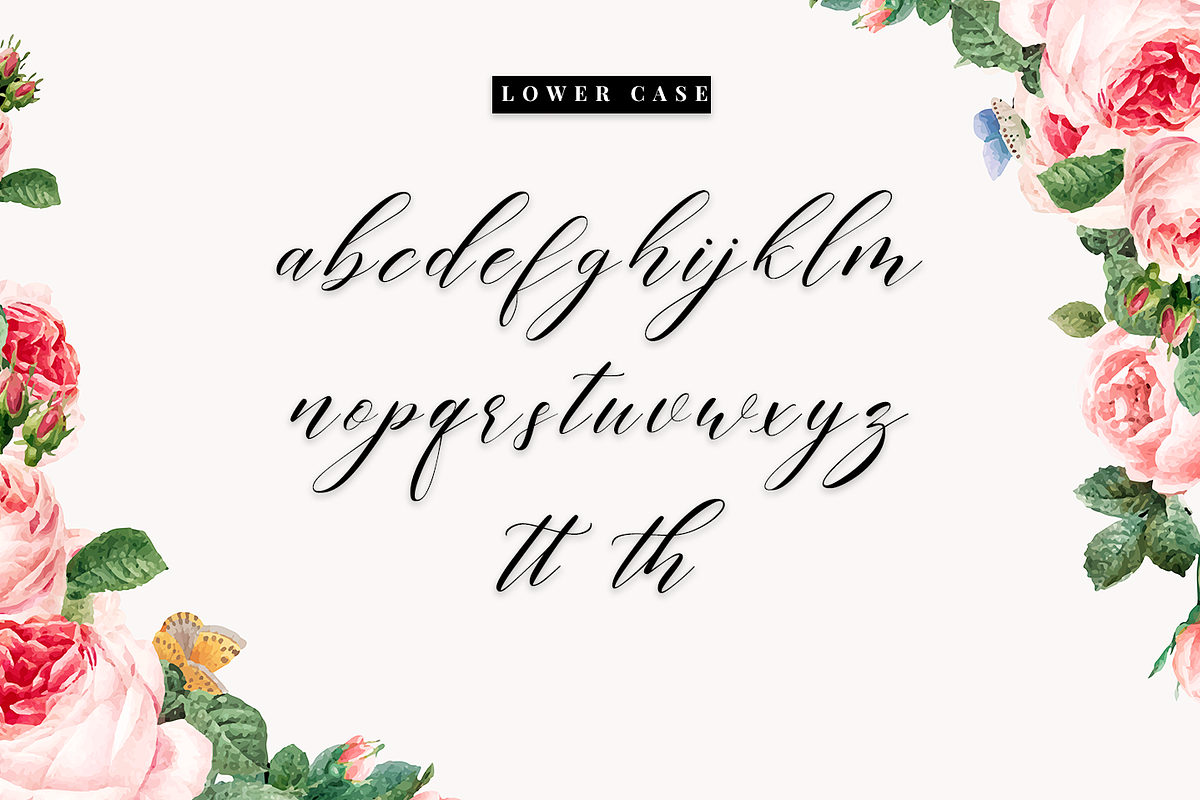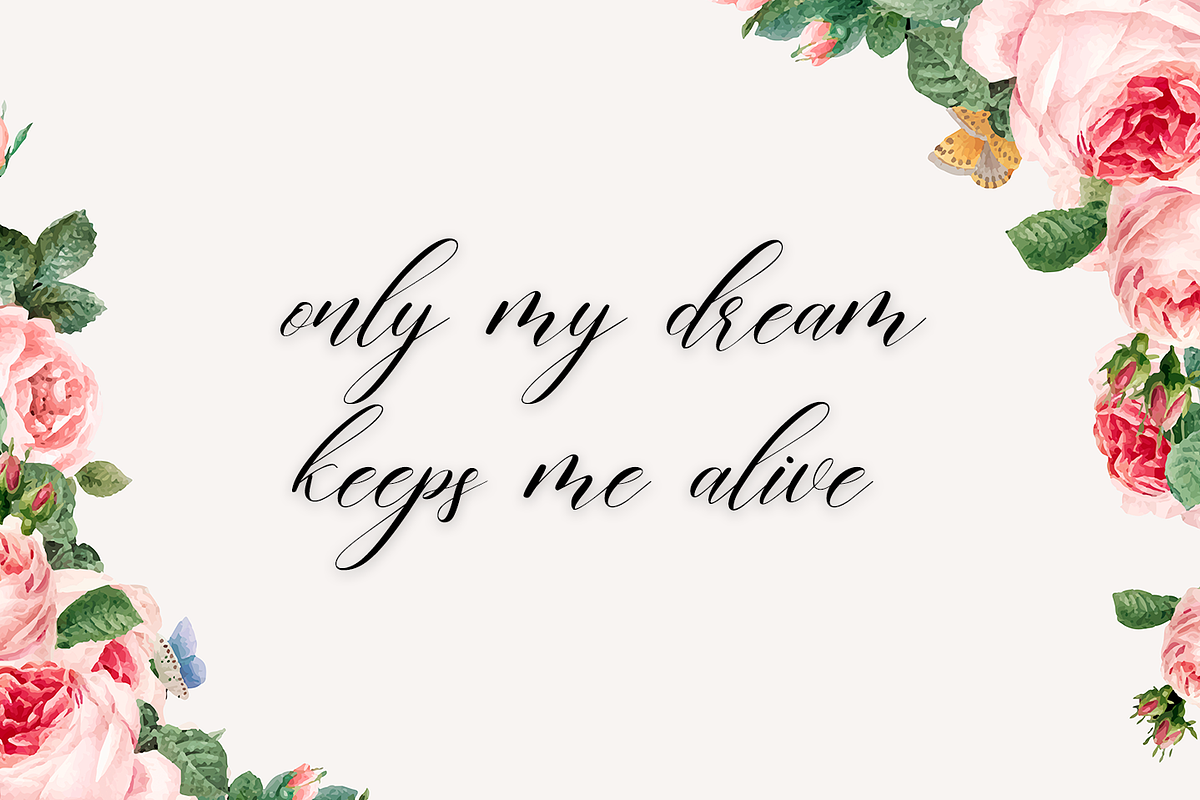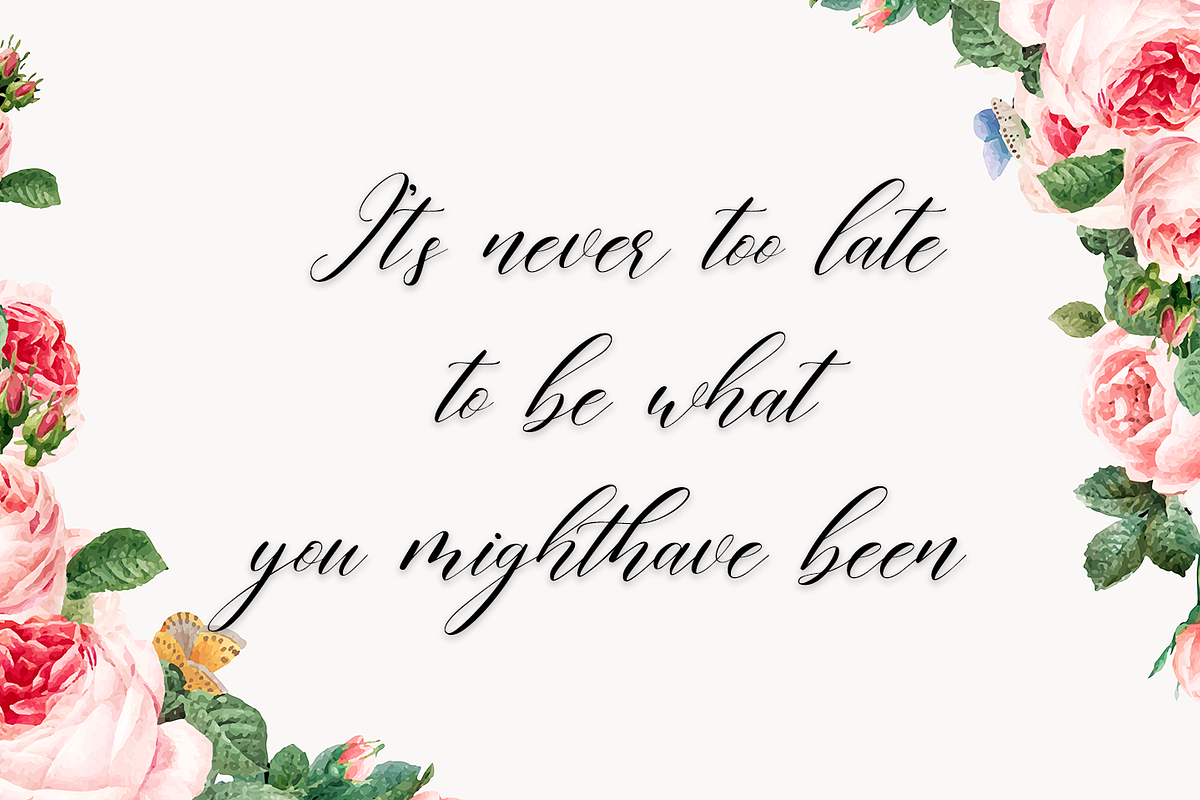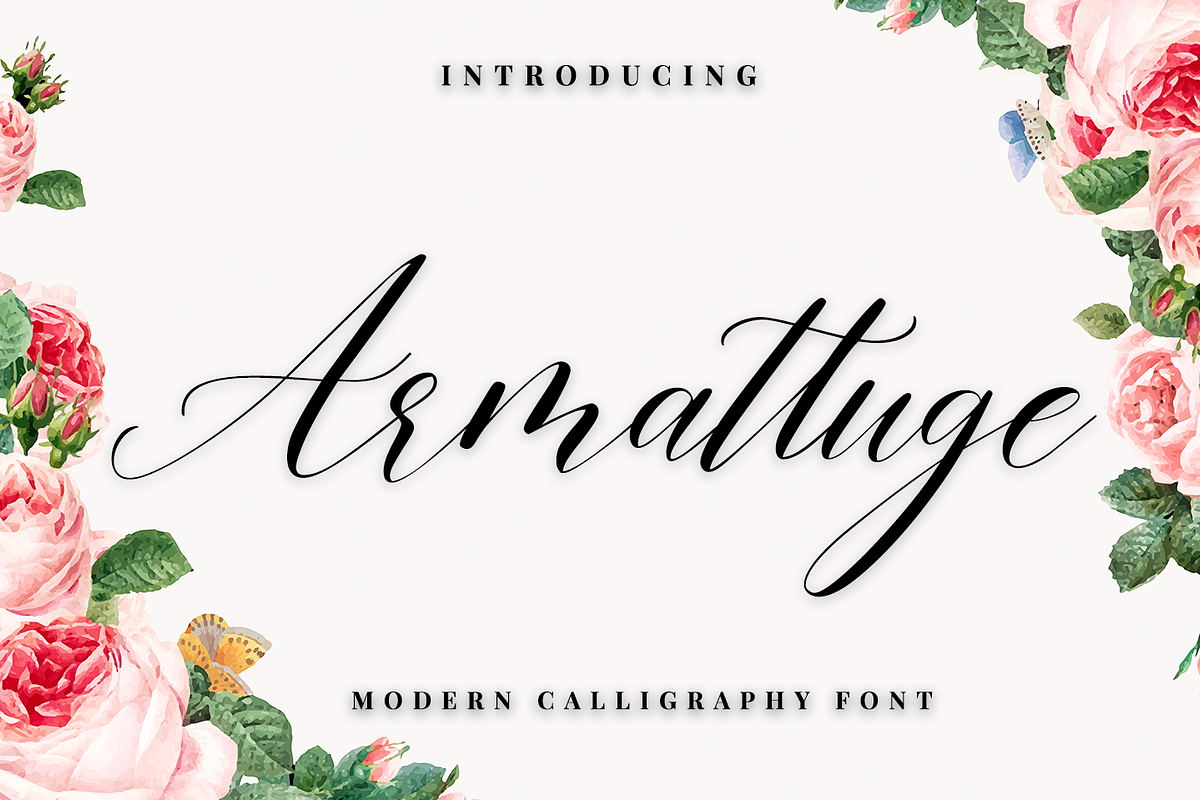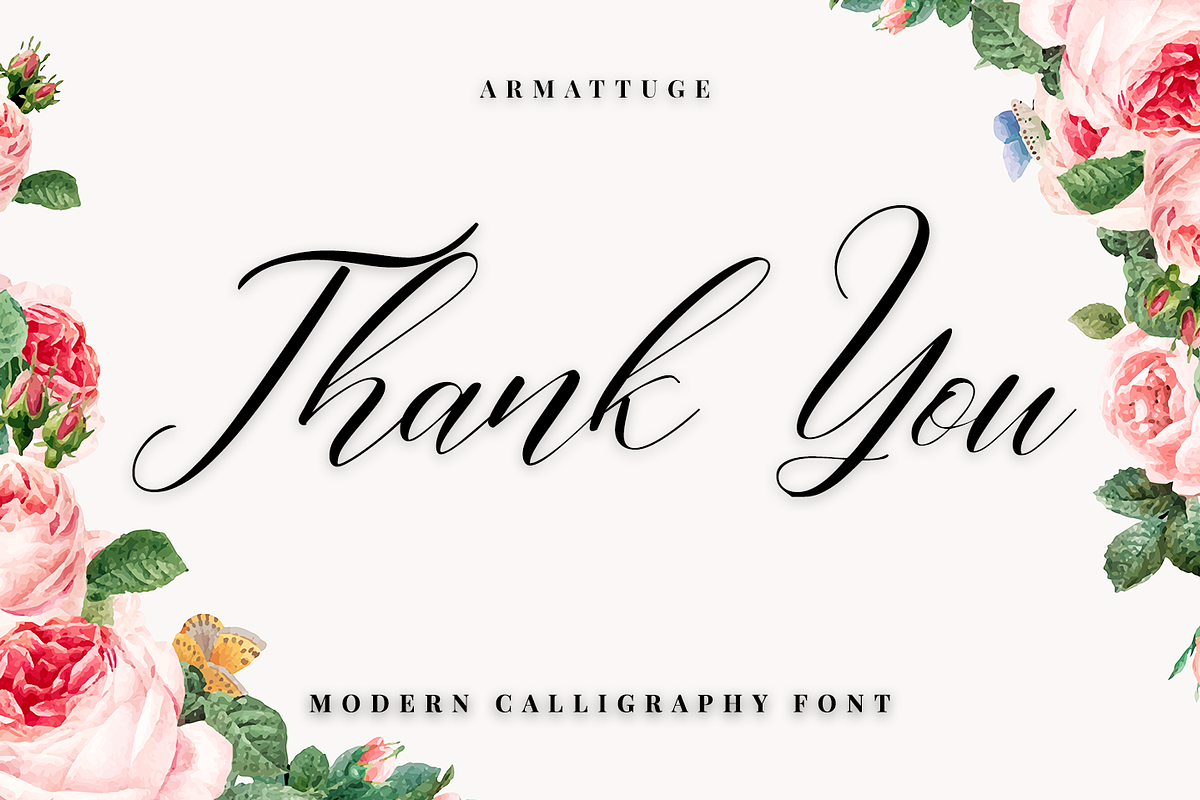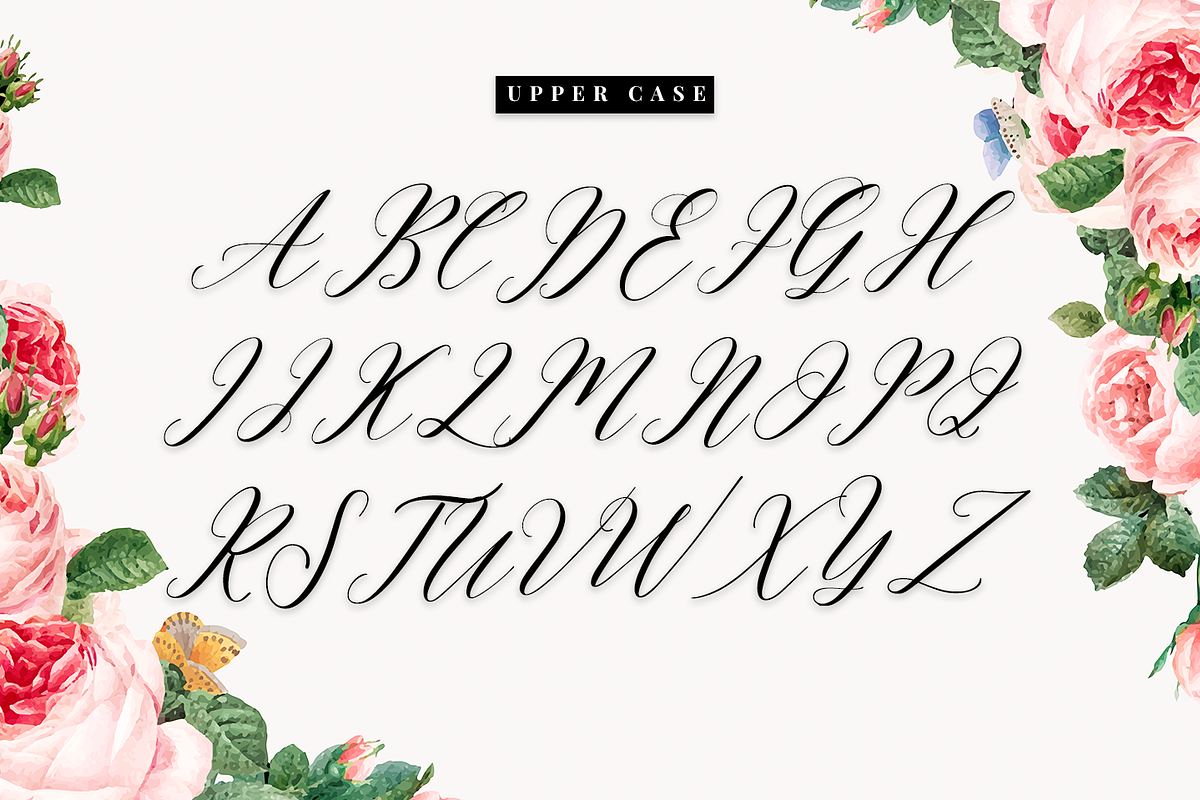
Armattuge - Script font
Armattuge - a new fresh handmade calligraphy font.
Very suitable for greeting cards, branding materials, business cards, quotes, posters, and more!This font are perfect for wedding postcard. Or you can create perfect and unique design of your logo, blog, stationery, marketing, magazines and more :)
Ligatures , Alternates
Armattuge - Script font by Quothron fits naturally into Branding, posters, packaging, typography.